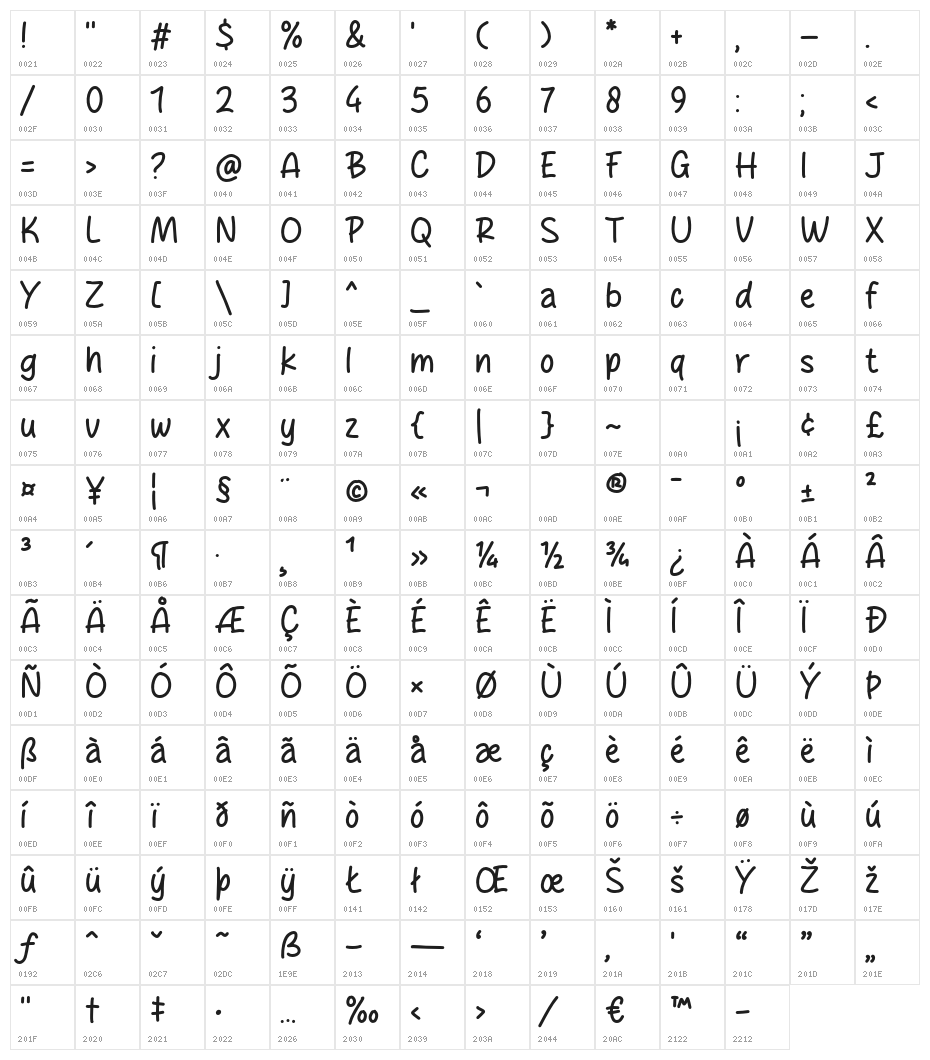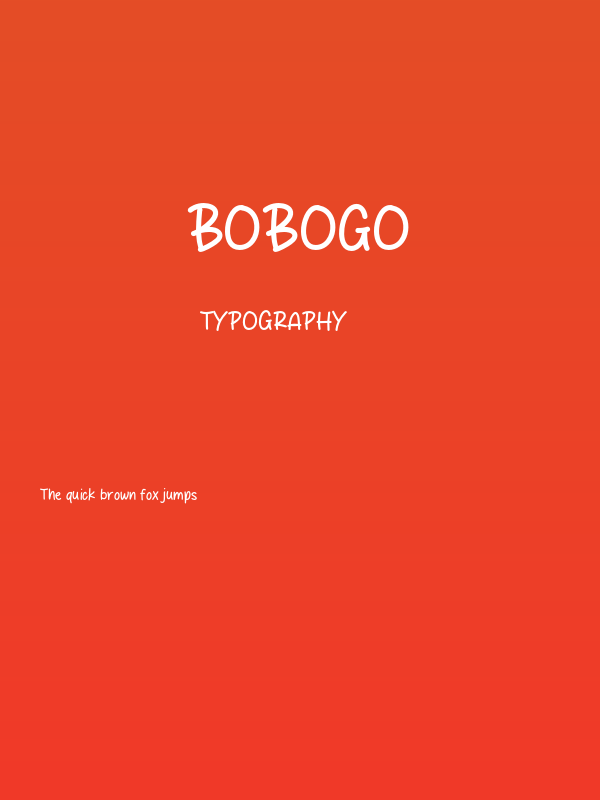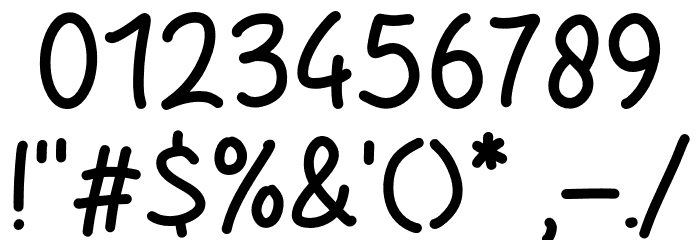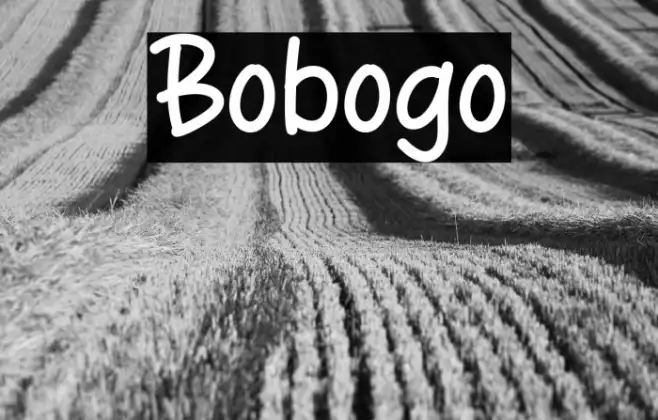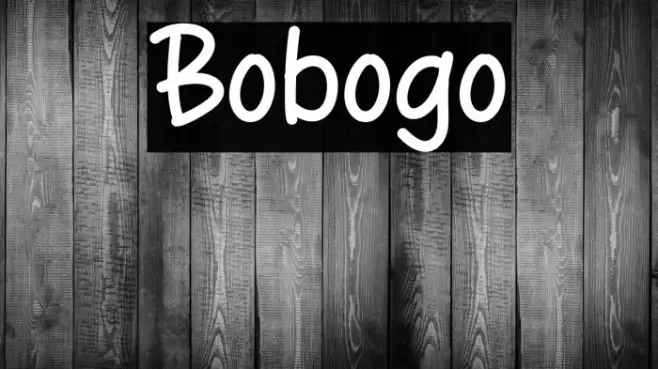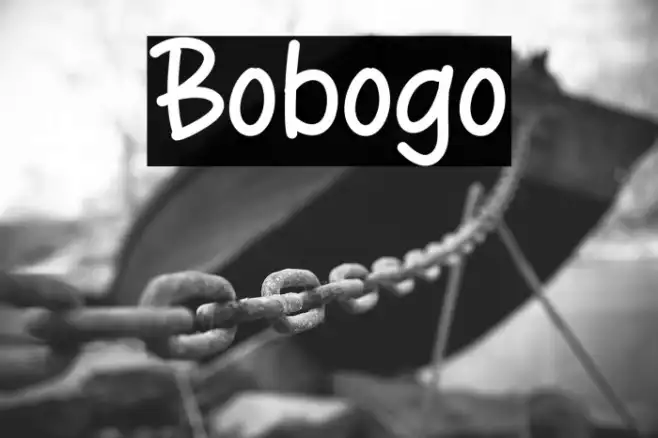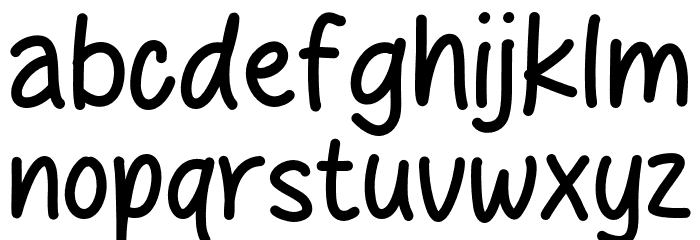
Bobogo Font
This playful and casual font exudes a handwritten charm, characterized by its rounded and slightly irregular letterforms. The strokes are consistent in thickness, giving it a uniform appearance while maintaining a friendly and approachable vibe. The uppercase and lowercase letters are well-balanced, with a slight tilt that adds to its informal style. Numbers and special characters are crafted with the same playful touch, making them easily readable and visually appealing. This font is perfect for projects that require a personal and human touch, such as invitations, greeting cards, or children's book covers.
| Overall Style | Casual |
| Use Case | Headlines, Logos, Informal Text |
| Proposed Projects | Ideal for invitations, greeting cards, children's books, and casual branding. |